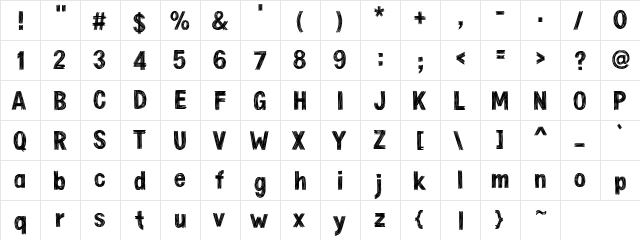
Thornback Regular
| Foundry | Lauren Ashpole |
| Designer | Lauren Ashpole |
Design Context for Thornback Typeface
Thornback takes a measured approach to typography — its balanced proportions and neutral character make it a reliable workhorse for both digital and print work.